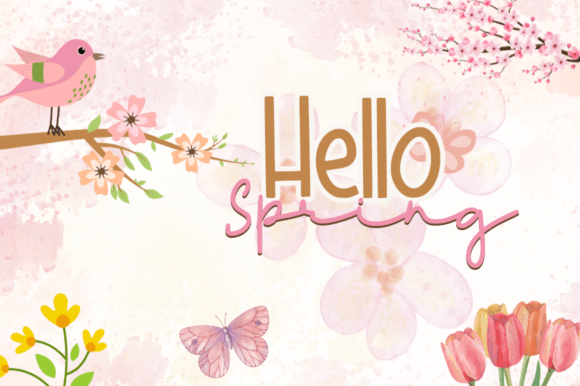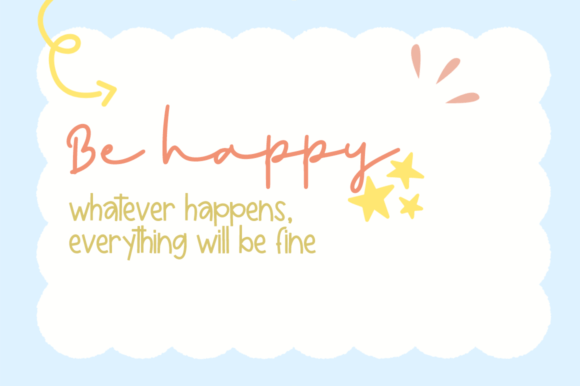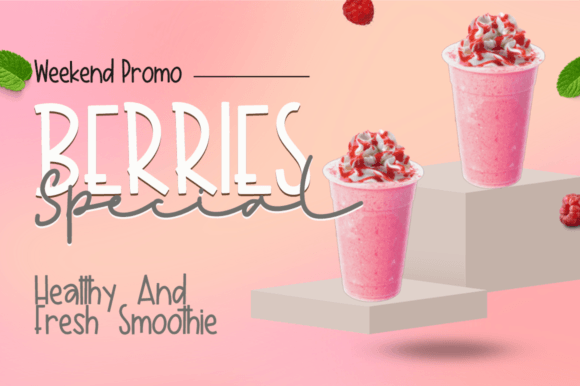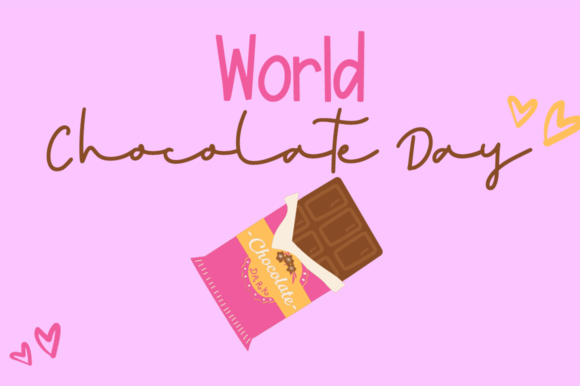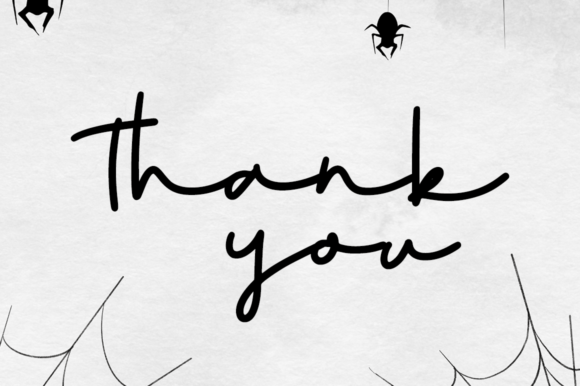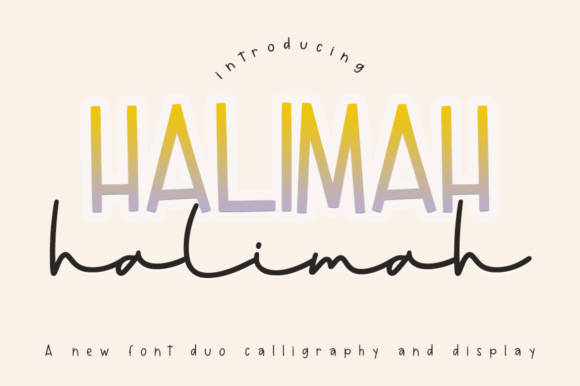
Introducing Halimah Font: The Elegant Script Font Duo for Modern Design
In the world of typography, a new font duo has emerged to capture the hearts of designers and crafters alike. Meet Halimah Font, a modern script font that boasts a unique blend of elegance and trendiness. Characterized by its irregular baseline, Halimah Script Font Duo is a versatile and beautiful addition to any design project.
What Makes Halimah Font Special?
Halimah Font is more than just a pretty face. Its modern aesthetics and distinctive irregular baseline set it apart from other script fonts. The font duo’s trendy and feminine charm makes it perfect for a wide range of applications, from wedding invitations and greeting cards to logos and business cards.
The Beauty of Halimah Script Font
The exquisite beauty of Halimah Script truly shines when used in:
- Wedding invitations: Add a touch of elegance and sophistication to your wedding stationery with Halimah Script.
- Thank-you notes: Express your gratitude in style with this beautiful script font.
- Expressive quotes: Make your quotes stand out with the unique and modern charm of Halimah Script.
- Warm-hearted greeting cards: Spread love and joy with this lovely font duo.
- Compelling logos: Create a lasting impression with Halimah Script’s trendy and feminine appeal.
Whether you’re branding a business card or simply expressing your personal creativity, Halimah script takes center stage. Its perfect compatibility with ink or watercolors only adds to its artistic allure, making it a preferred choice for any design projects requiring a modern flair.
Why Designers and Crafters Love Halimah Font
Designers and crafters love Halimah Font for its:
- Unique and irregular baseline, which adds a touch of elegance and sophistication to any design.
- Trendy and feminine charm, which makes it perfect for a wide range of applications.
- Versatility, which allows it to be used in various design projects, from wedding invitations to logos.
- Perfect compatibility with ink or watercolors, which adds to its artistic allure.
Tips for Using Halimah Font
Here are some tips for using Halimah Font in your design projects:
- Use Halimah Script for headings and titles to add a touch of elegance and sophistication.
- Pair Halimah Script with a simple sans-serif font for a beautiful contrast.
- Don’t be afraid to get creative and try new things – Halimah Script is a versatile font that can handle it!
In conclusion, Halimah Font is a beautiful and versatile script font duo that is perfect for modern design projects. Its unique blend of elegance and trendiness makes it a great choice for designers and crafters alike. With its perfect compatibility with ink or watercolors and its artistic allure, Halimah Script is sure to become a favorite in your design arsenal.